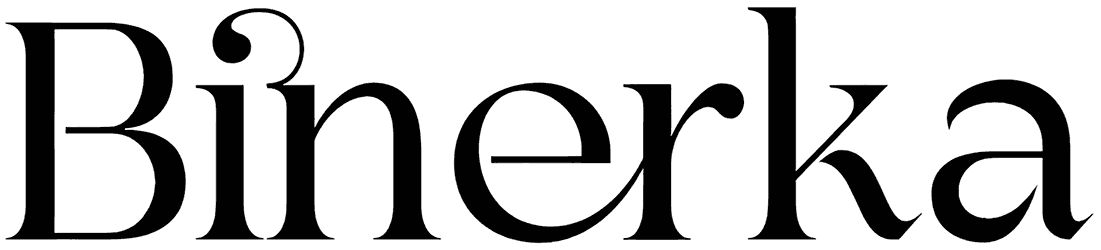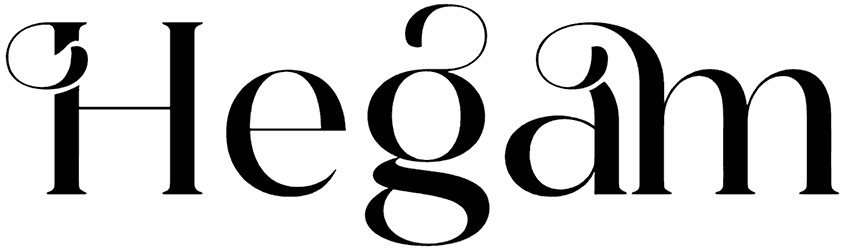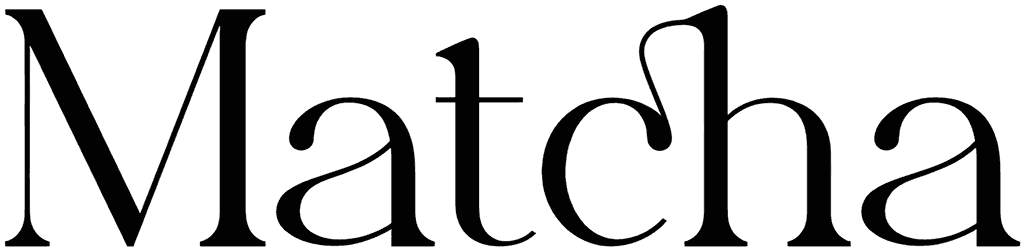
Leky Calgria Font
An elegant, fashion font like Leky Calgria is useful for producing a professional project that will appeal to a wide audience, even though it does not have any numerical characters. It will be noticeable in many media, including stories, books, context, and flyers.